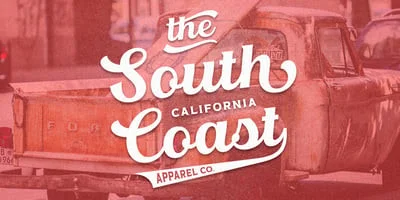
Landre Font
This distinguished typeface is perfect for luxury real estate agencies, high-end hospitality brands, prestigious law firms, exclusive private clubs, upscale retail boutiques, premium automotive dealers, fine art galleries, sophisticated wine collections, elegant event planning, aristocratic heritage sites, refined cultural institutions, and distinguished professional services. The font's noble design makes it ideal for projects that emphasize tradition, exclusivity, and timeless sophistication with aristocratic elegance.
Landre Font is exciting because it embodies aristocratic heritage and distinguished refinement through its stately letterforms and noble character structure. The font's elegant proportions and sophisticated curves create an atmosphere of prestige, tradition, and cultured excellence, making it perfect for brands that want to convey heritage, exclusivity, and the highest standards of quality. Its distinguished personality ensures instant recognition while maintaining exceptional readability across various luxury applications.
The Landre Font family includes multiple aristocratic variations: Light Noble, Regular Distinguished, Medium Prestigious, Bold Aristocratic, and Black Regal weights, each available in standard and italic versions. Special heritage editions feature ornamental capitals, elegant ligatures, and refined decorative elements that enhance the font's luxurious appeal, providing designers with comprehensive tools for creating truly distinguished brand experiences.
Embrace timeless distinction with Landre Font – a typeface that represents aristocratic elegance and cultural sophistication. Whether you're developing luxury branding, heritage institution materials, or exclusive service marketing, this font delivers the noble presence and distinguished character your projects need while ensuring exceptional performance and prestigious impact across all luxury and heritage applications.